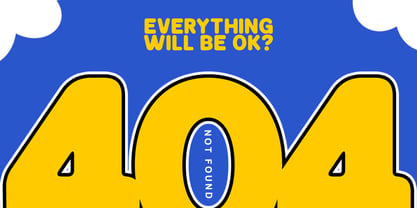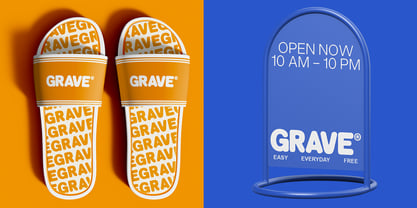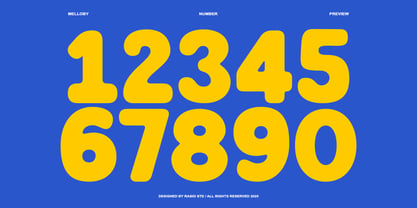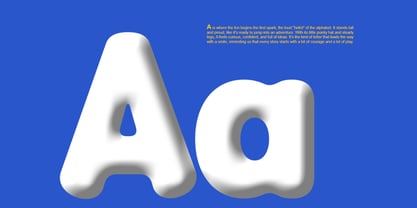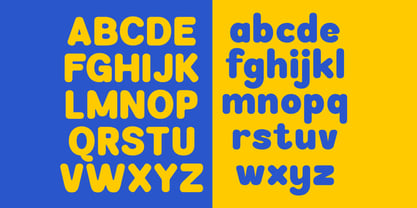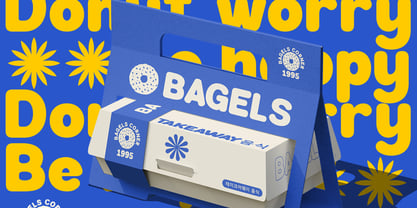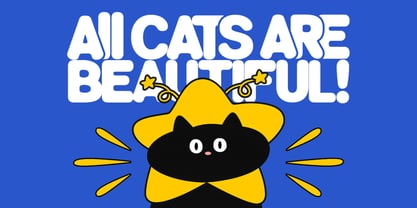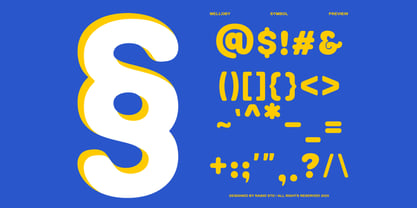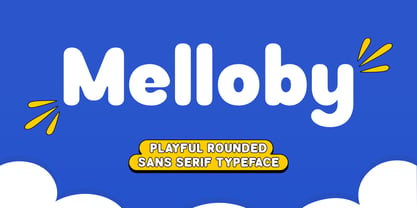
Melloby
La familia tipográfica Melloby fue diseñada por Fajar Indra y publicada por Rasio Studio. Melloby contiene 1 estilos. Más información sobre esta familia
Melloby is a friendly rounded sans serif font designed to bring a modern, clean, and playful character to your typography projects. With its smooth curves, balanced proportions, and soft geometric shapes, Melloby delivers a warm and approachable visual tone while maintaining excellent readability. Melloby is perfect for modern branding, social media graphics, product packaging, UI/UX design, editorial layouts, posters, and creative marketing materials. Its rounded shapes and friendly tone make it especially effective for brands that want to appear approachable, modern, and visually engaging.